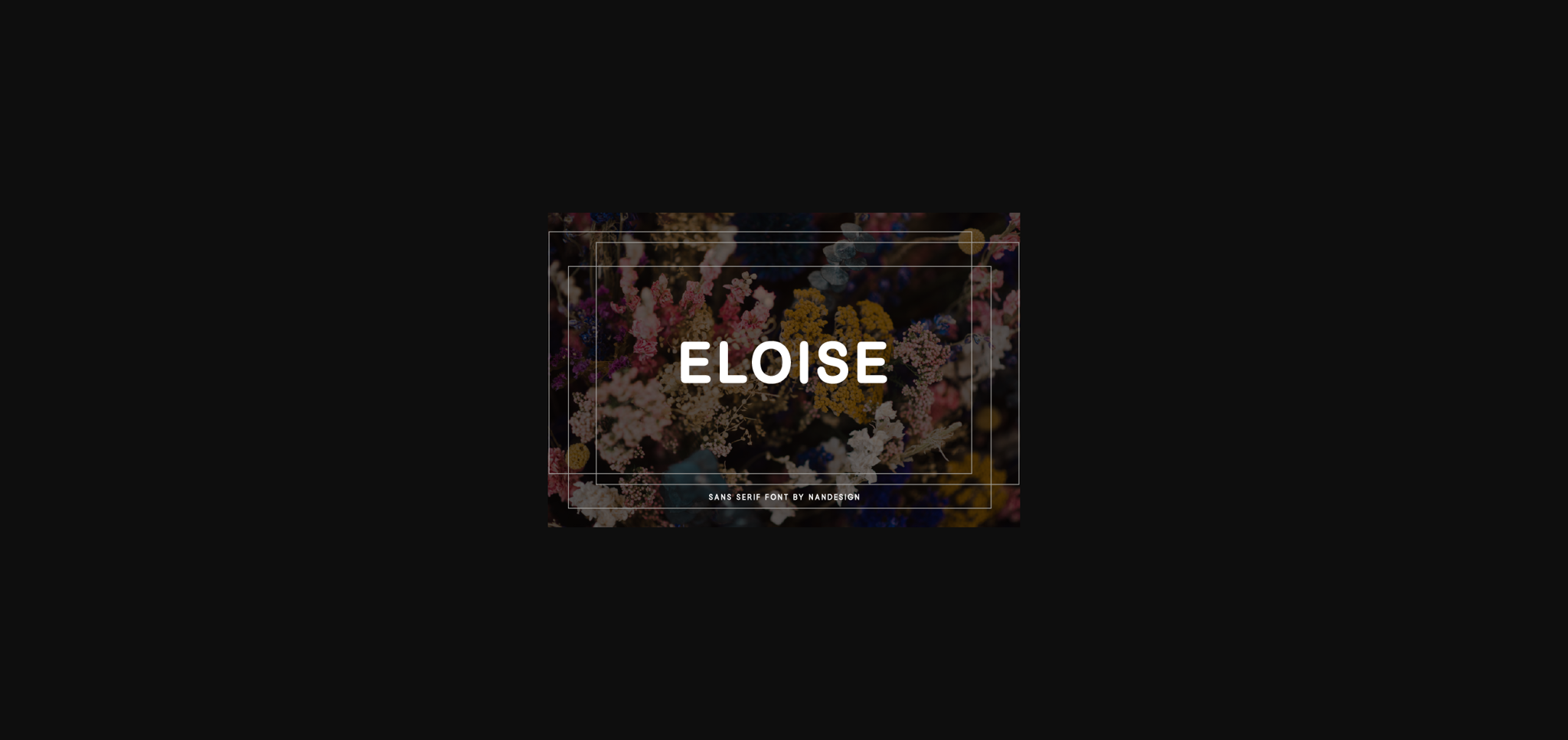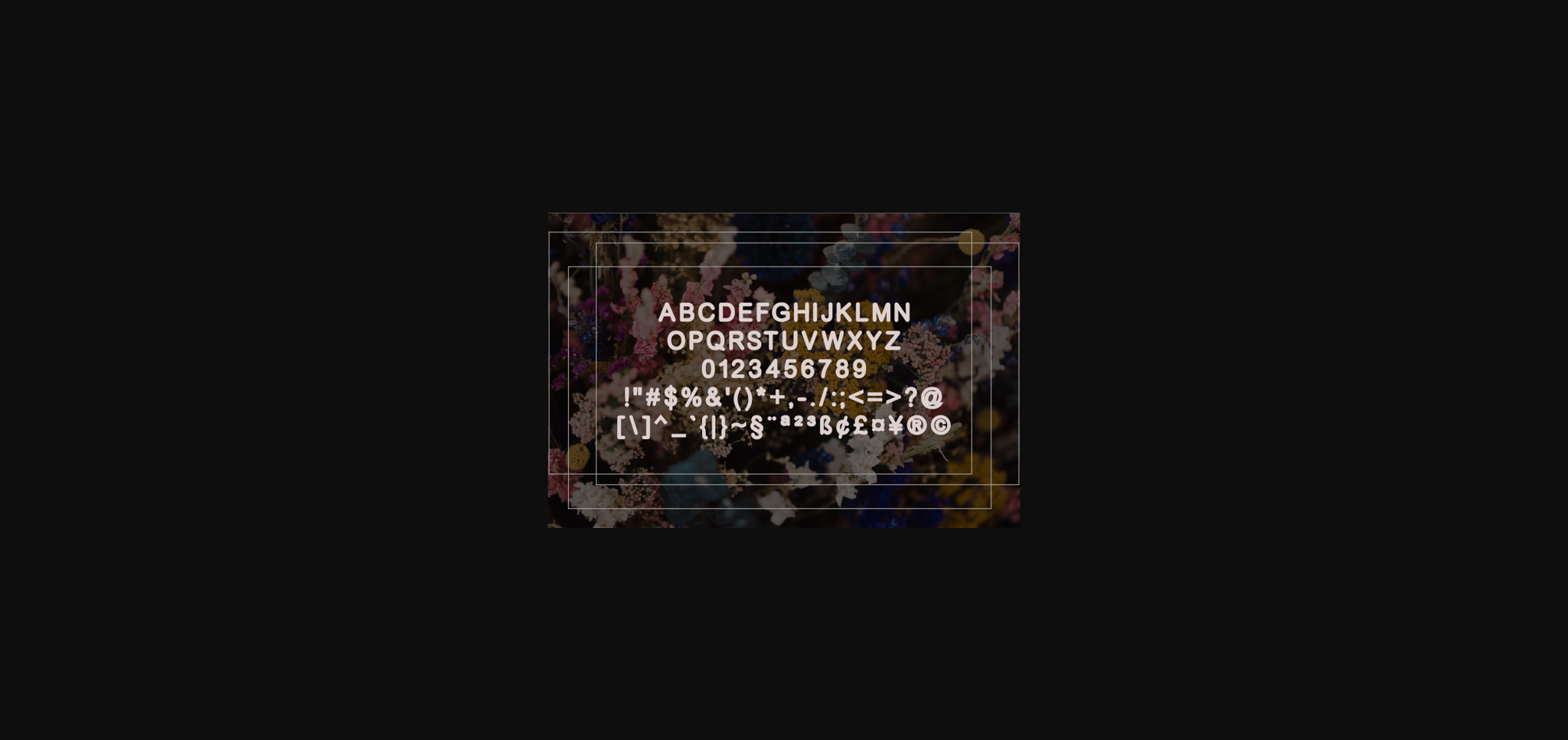
Eloise is a modern sans serif font. This is a beautiful combination of timeless elegance and authentic calligraphy. Eloise is the perfect font for making original and outstanding designs.